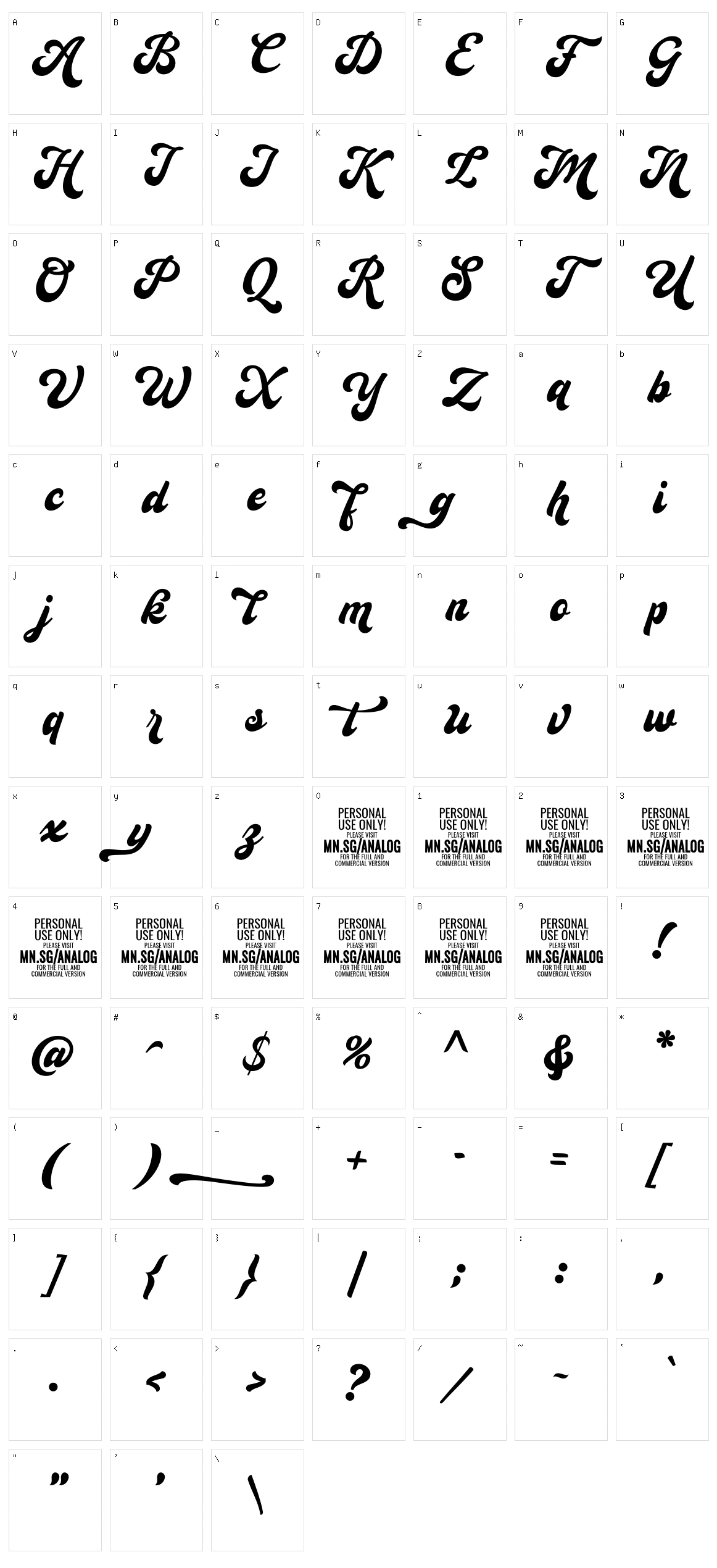
Analog Script is a bold and beautiful cursive typeface.
Drawn and created by Mans Greback in 2022, this lettering has a distinct style and a strong personality.
Use underscore _ anywhere in a word to make a swash under the word.
Example: Wonder_woman
Use multiple underscores for different swashes.
Example: Love______letter
Write # or ¤ after any letter to make a swash version.
The font is built with advanced OpenType functionality and has a guaranteed top-notch quality, containing stylistic and contextual alternates, ligatures and more features; all to give you full control and customizability.
It has extensive lingual support, covering all Latin-based languages, from Northern Europe to South Africa, from America to South-East Asia.
It contains all characters and symbols you'll ever need, including all punctuation and numbers.